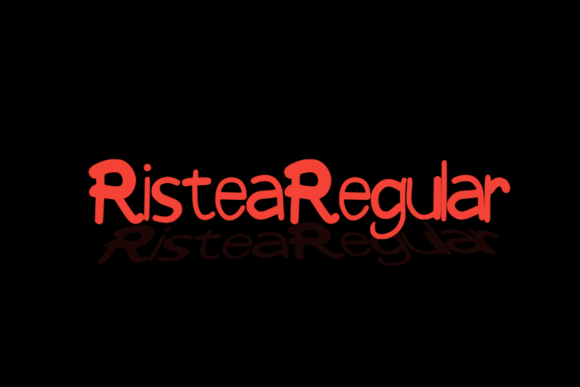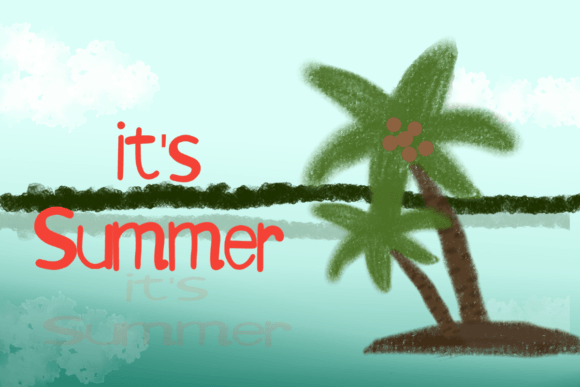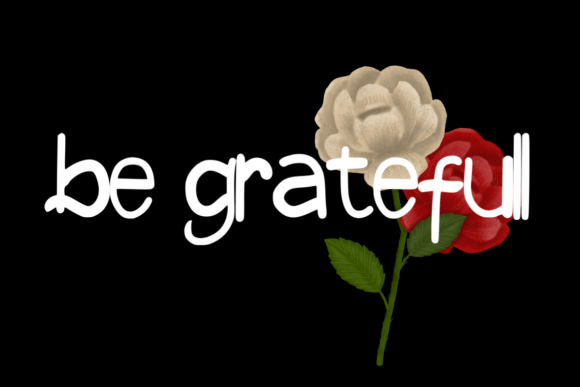
Ristea Font
About Ristea Font
“Ristea” is a casual and fun handwritten font that has the potential to become your go-to choice for a wide range of design projects. This font embodies a playful and relaxed style, making it suitable for crafts, digital design, presentations, greeting cards, and numerous other occasions.
One of the standout qualities of “Ristea” is its casual and fun appearance. The font’s characters exude a sense of playfulness and informality that adds character to your designs. “Ristea” is a versatile choice for projects where you want to convey a sense of ease and approachability.
The flexibility of “Ristea” ensures that it can be effectively used across various creative applications. Whether you’re working on DIY crafts, designing engaging digital graphics, creating dynamic presentations, sending heartfelt greetings with personalized cards, or simply aiming to infuse a sense of fun into your content, “Ristea” adapts seamlessly to your creative vision.
“Ristea” is a font that stands out as a reliable and enjoyable option. Its handwritten style adds authenticity and a personal touch to your projects, making them feel both approachable and inviting. It’s the kind of font that suits both casual and informal occasions, making it a versatile choice for a variety of design endeavors.
Incorporating “Ristea” into your design projects will likely make it a favorite go-to font. Its casual and fun appearance is perfect for creating a relaxed and enjoyable atmosphere in your designs. Embrace the versatility and playfulness of “Ristea” in your next project, and experience how it adds a layer of charm and informality to your creations, no matter the occasion.